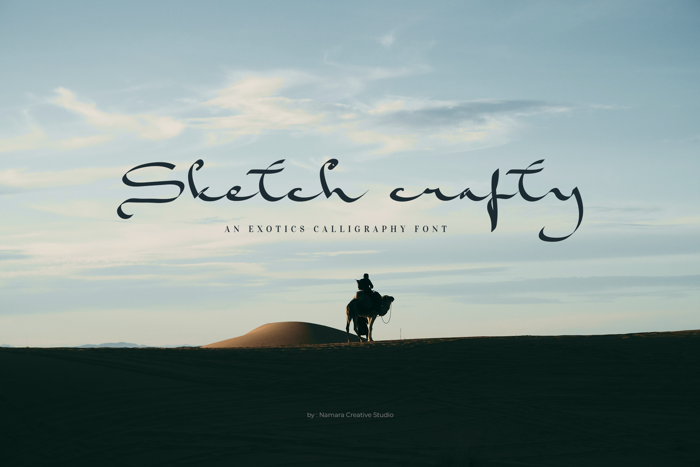
Sketch Crafty Font
exotic calligraphy font with carefully made. It's the perfect choice for
personal branding projects, handwritten quotes, homeware designs, product packaging
or simply as a modern & stylish text overlay to any background image.